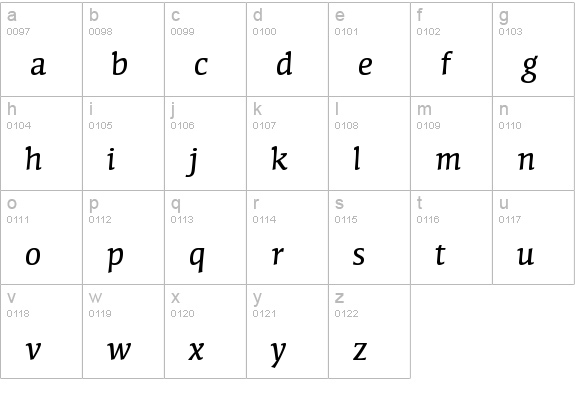
Conga Brava Std font is a stunning display typeface that exudes energy and rhythm in every stroke. With its bold, dynamic letterforms and playful flair, this font is perfect for adding a touch of excitement to your designs. Whether you're creating posters, flyers, or branding materials, Conga Brava Std will make your text pop and stand out from the crowd. The best part? Conga Brava Std is available for free download at FontsMarket.com. Simply head over to the website and get your hands on this lively font to enhance your projects with its vibrant personality. Embrace the spirit of celebration and movement with Conga Brava Std font today!